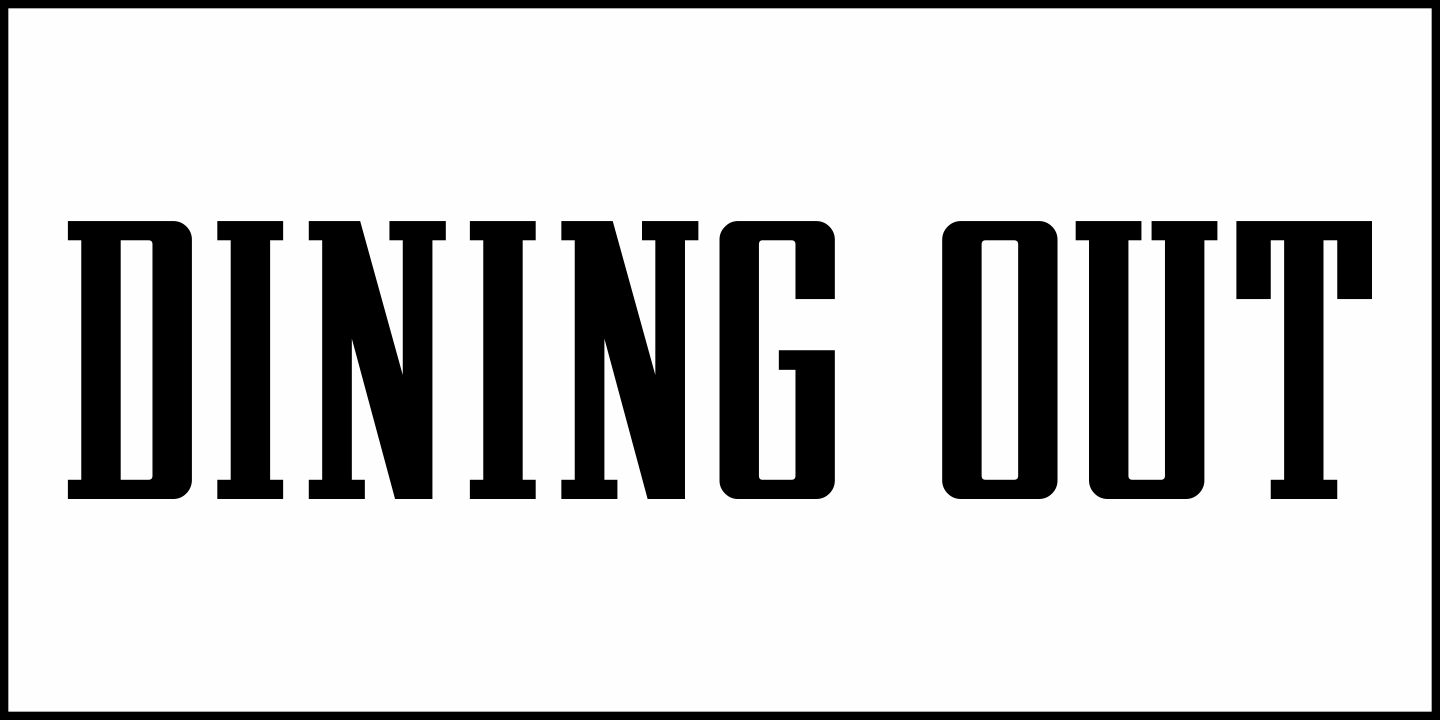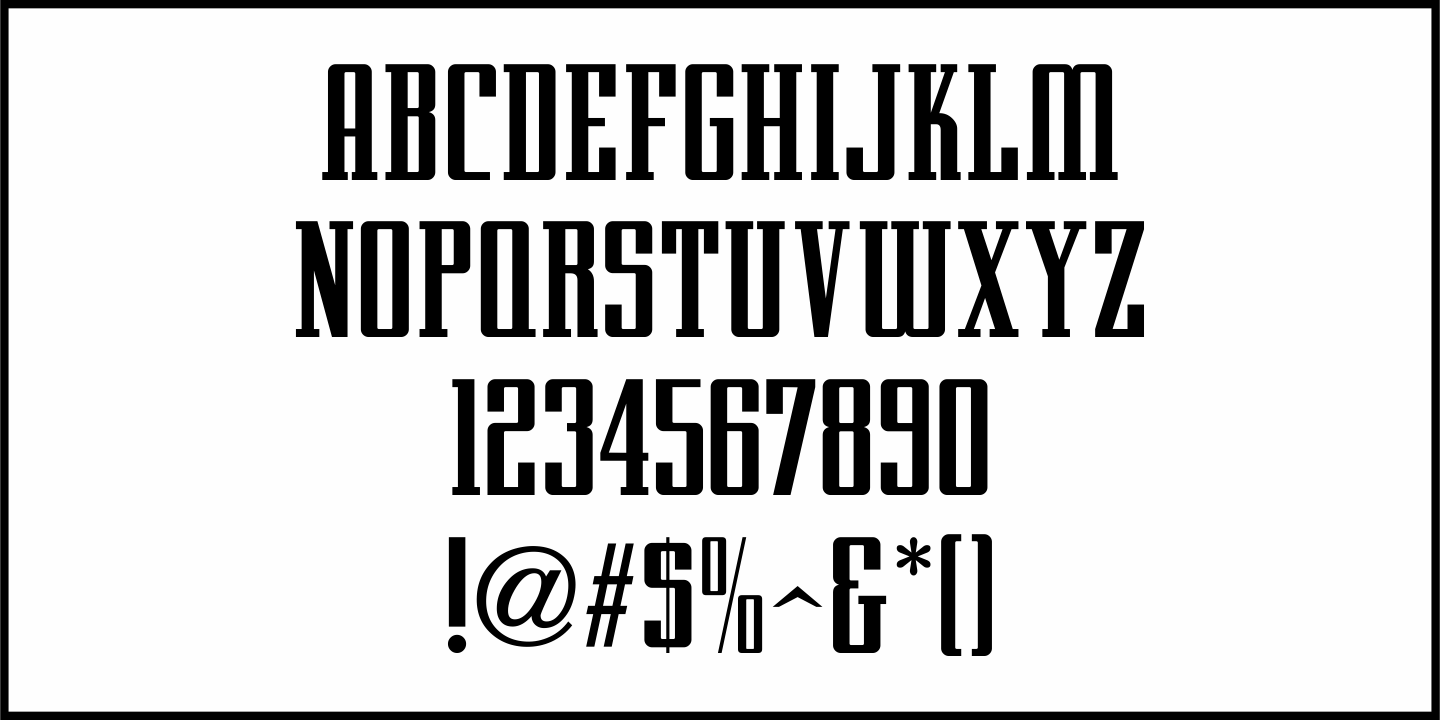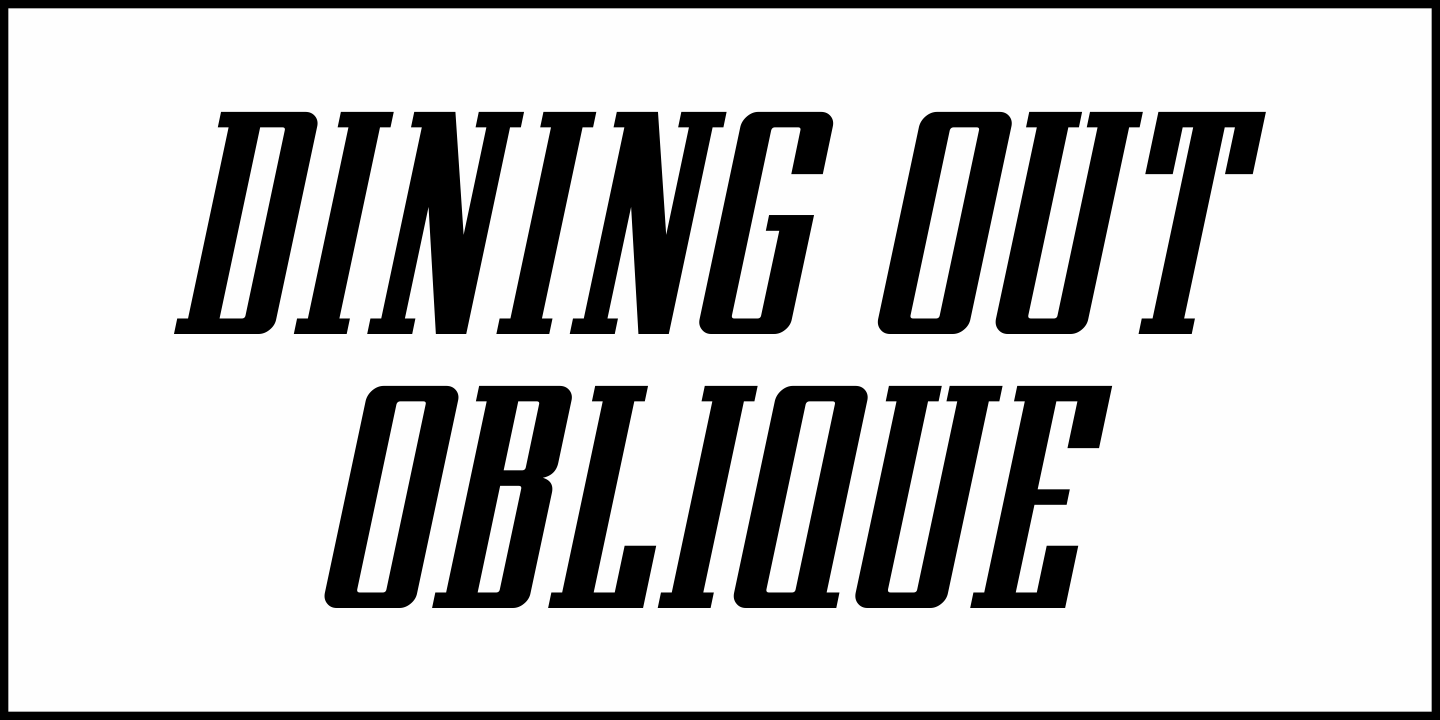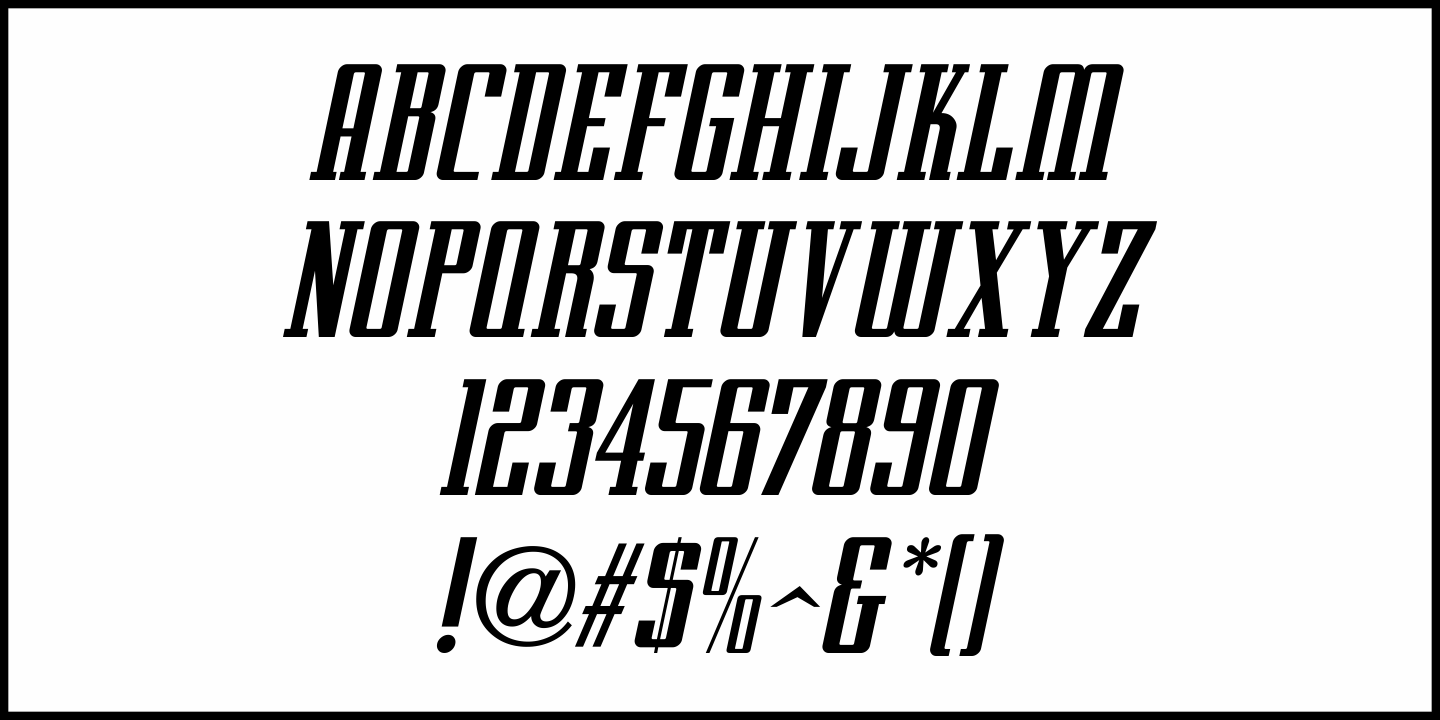
Dining Out
A 1940s ad flier for the Los Angeles restaurant “Lucca Paris Inn” had its name hand lettered at the top of the page in a condensed Art Deco slab serif with some stylized characters.
Given a more uniform look, the end result became Dining Out JNL and is available in both regular and oblique versions.